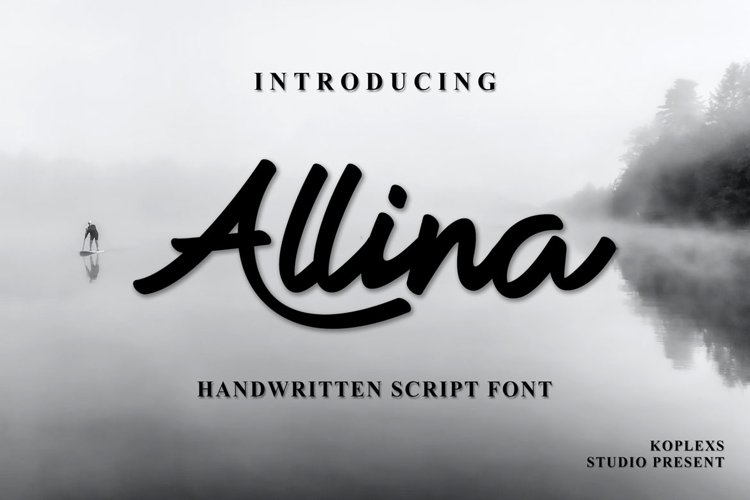
Allina - Handwritten Script Font
Allina - Signature Bold Script
Allina is a Signature Bold Script Font. It's perfect for logos, invitations, stationery, wedding designs, social media posts, advertisements, product packaging, product designs, labels, photography, watermarks, special events, or whatever.
What are the advantages of Allina?
• Alternite